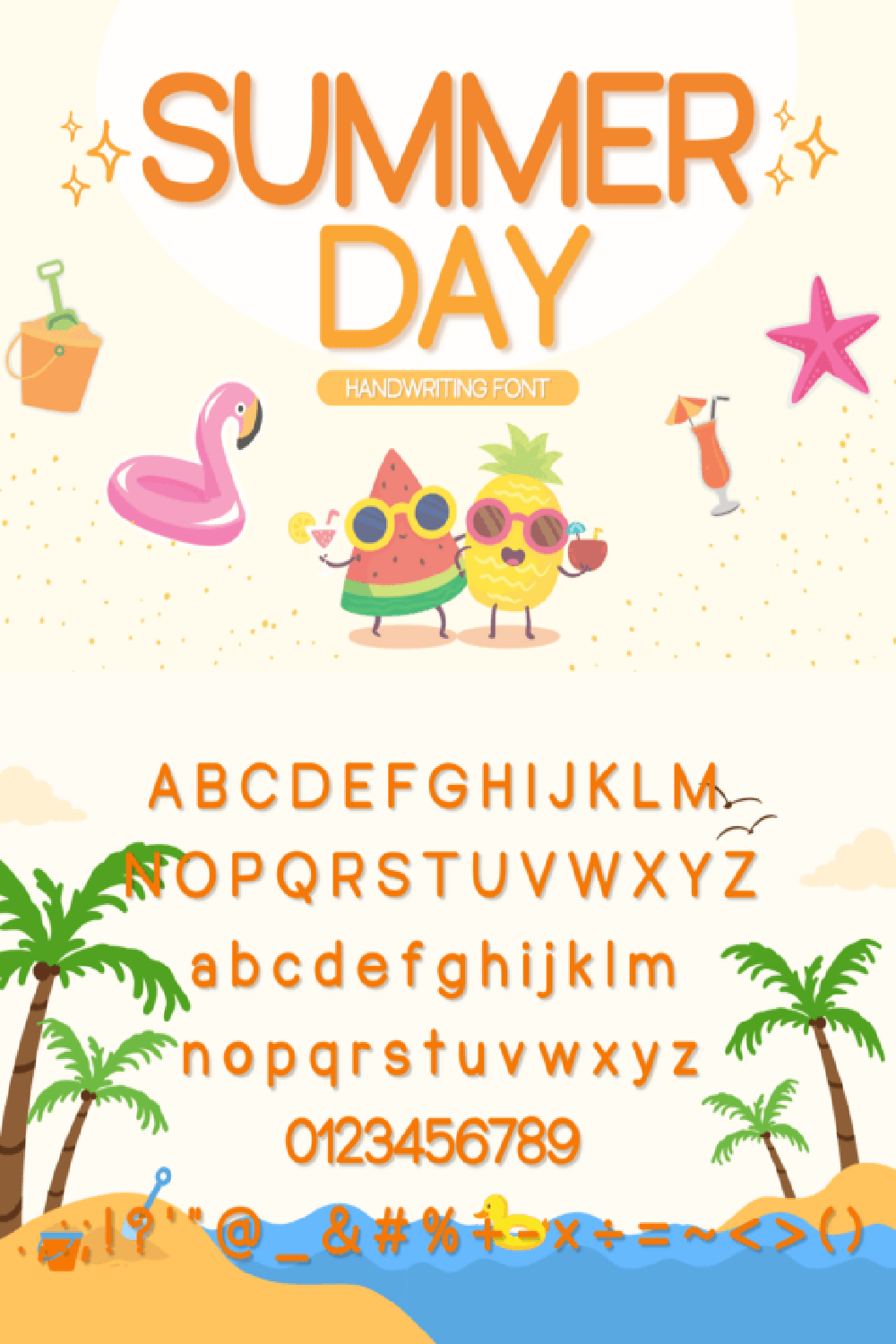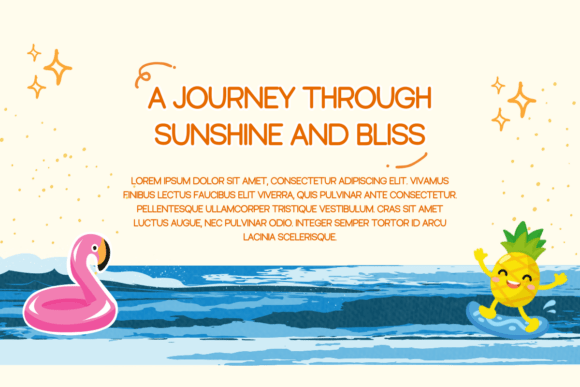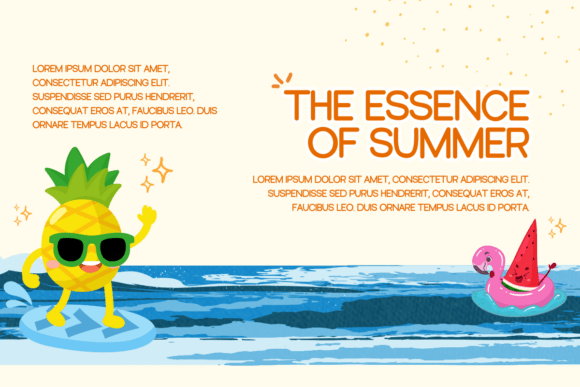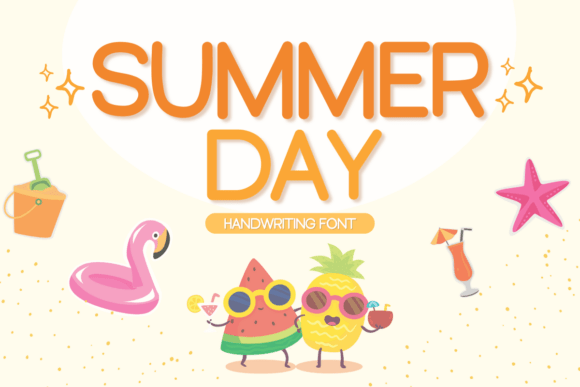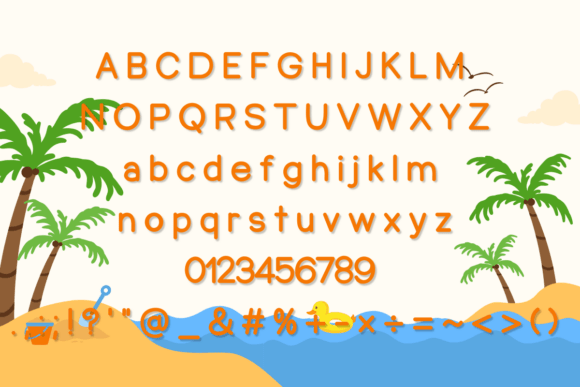
Summer Day Font: A Cute Handwritten Font for Cricut & DIY
About the Summer Day Font
We are excited to introduce Summer Day Font, a must-have typeface for any serious designer. Summer Day is a handwritten font. You can use it for taking notes, writing a diary or making greeting cards. However you can still use it for other designs such as banners content mugs cards shirts stationery social media posts and more!
Summer Day Font Usage Examples